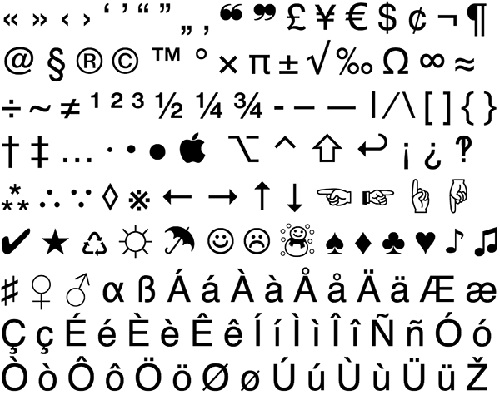
Special Fonts Copy And Paste. Font generator will convert your text letters using calligraphy font. Fontvilla basically does all your work for you and leaves only the copy and paste task for you.
With such fonts, you can freely express your feelings and accentuate the importance of your words. Text with special computer letters and symbols, kind of like emoji. Go or others, this way you can also get a unique and awesome username in your favorite game.
Special Elite Was Created To Mimic The Smith Corona Special Elite Type No Nr6 And Remington Noiseless Typewriter Models.
Font generator will convert your text letters using calligraphy font. Font changer generates many different types of fonts, few of them given below. A collection of cool symbols that provides access to many special fancy text symbols, letters, characters.
By using fontvilla.com fast copy & paste font generator you can create endless cool combinations of nicknames and symbols. We can convert your text into any unicode character copy and paste that you want. Now you can paste and share these fancy fonts anywhere you want.
It Generates The Fonts Using A Series Of Unicode Symbols, Which Is What Allows You To Copy And Paste Them.
With such fonts, you can freely express your feelings and accentuate the importance of your words. Fontvilla can be used in this way as well. It’s just as simple as copying and pasting your text.
All of them will look stunning and it will be easy to read them. It is very easy to use, you just need to enter your normal numbers which you want to convert in fancy fonts. Fun with different special symbols lenny face generator ( ͡° ͜ʖ ͡°) copy paste lenny face ( ͡°👅 ͡°) ( ͡° ͜ʖ ͡°) ( ͡⊙ ͜ʖ ͡⊙) ( ͡ ͜ʖ ͡ ) ¯\_( ͡° ͜ʖ ͡°)_/¯ emoticons and use a cool lenny face generator to make your own custom lenny faces that perfectly suit any discussion.
Go or others, this way you can also get a unique and awesome username in your favorite game. Text with special computer letters and symbols, kind of like emoji. It produces copy and paste fonts theat can be easily used on robloc to change the font style.